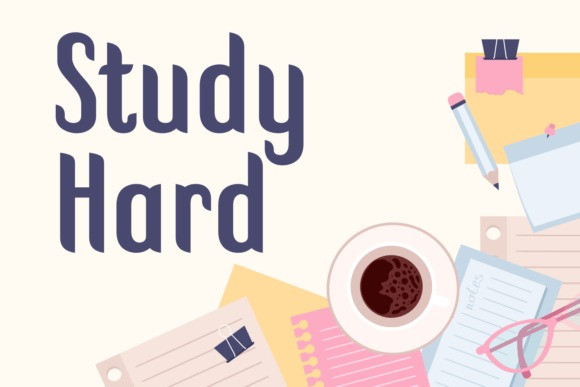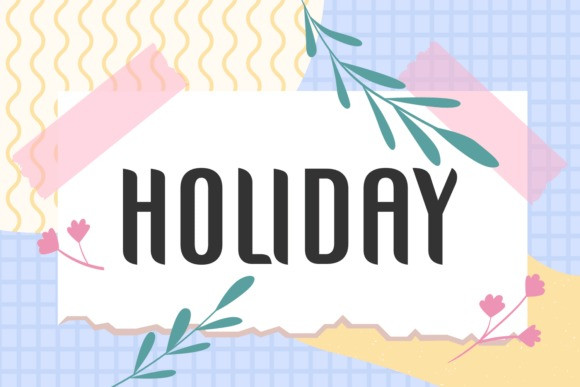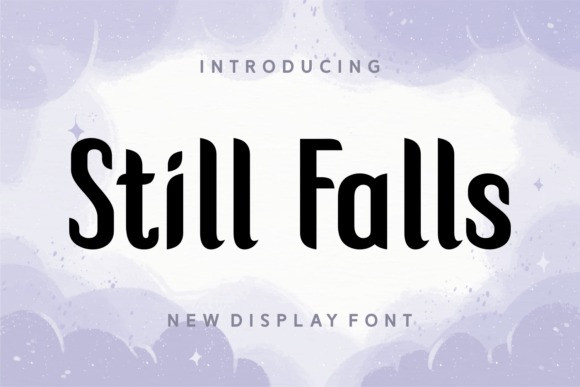
Still Falls Font
Still Falls Font is a beautifully versatile Sans Serif font, exuding an understated elegance that makes it the perfect choice for modern design aesthetics. Whether for evocative photography captions, attention-grabbing headlines, clothing tags or seamlessly authenticating a brand voice, this font truly shines. It emanates a clean and smooth vibe, making it perfect for simple, crisp branding on packaging, or adding a sophisticated touch on book covers or magazines. It’s also ideal for creative pursuits, effortlessly enhancing greeting cards, quotes and T-shirt designs with a trendy flair. “Still Falls” comes with multilingual support, catering to a wide, diverse audience. Explore the endless possibilities with this stylish and practical font addition to your toolkit.